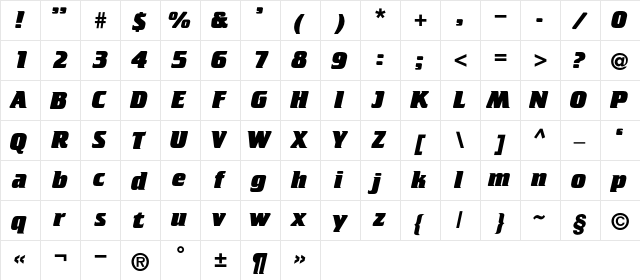
CricketHeavyC Regular
Design Context for CricketHeavyC Typeface
CricketHeavyC is a composed and adaptable typeface that performs quietly and consistently across a wide range of design contexts.
Pro Tip: Pair CricketHeavyC with a font of contrasting weight or personality to build a more expressive typographic hierarchy.